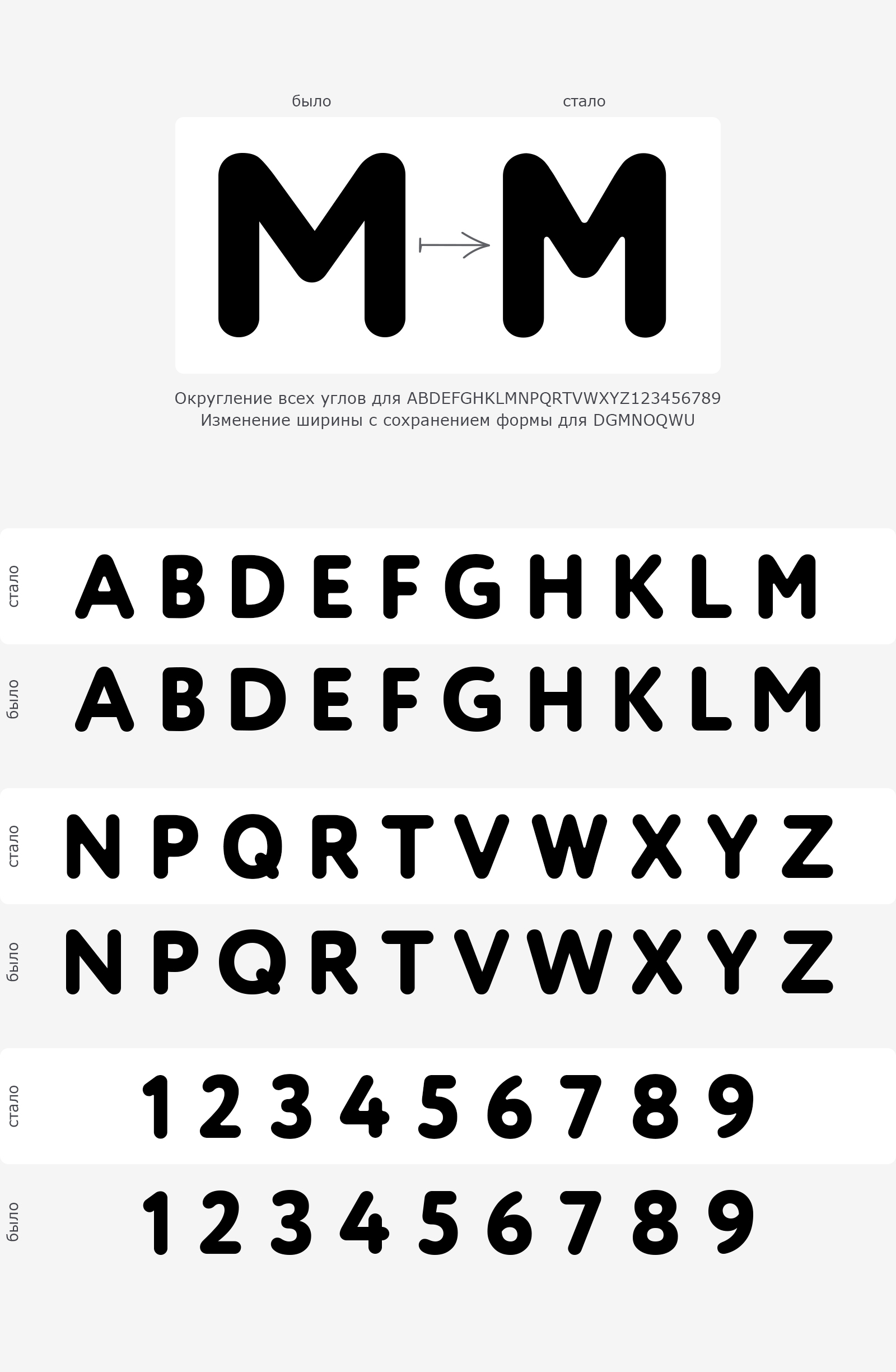
Preparation of finished fonts
Working on the finished font CirceRoundedAlt-Regular2
Circuit of all corners for ABDEFGHKLMNPQRTVWXYZ123456789
Change of width with form preservation for DGMNOQWU